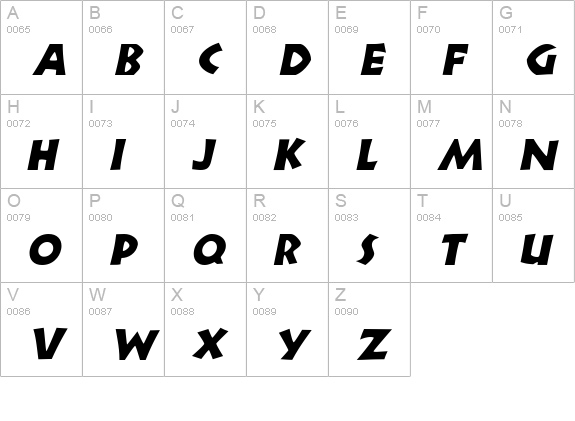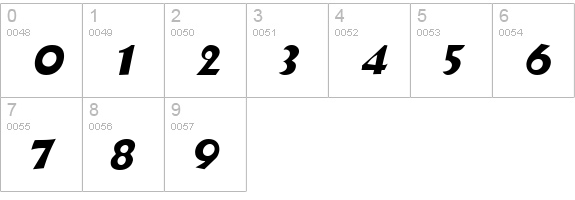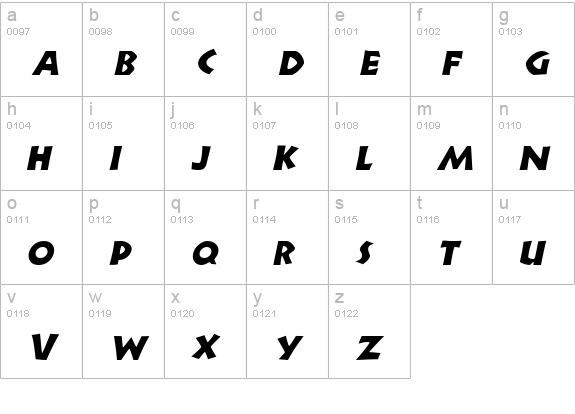
Newell Italic Font Details
Newell Italic is a distinctive, italic variant in the Newell typeface family \xE2\x80\x94 well suited to design and typography projects.
Newell Italic font is a sleek and elegant typeface that exudes sophistication and charm. Its italicized design adds a touch of flair to any project, making it perfect for branding, invitations, and more. The slanted letterforms create a sense of movement and flow, giving your text a dynamic and modern look. Best of all, Newell Italic font is completely free to download at FontsMarket.com. You can easily access this stylish font and enhance your designs with its unique aesthetic. Don't miss out on this opportunity to elevate your projects with the beauty of Newell Italic font.